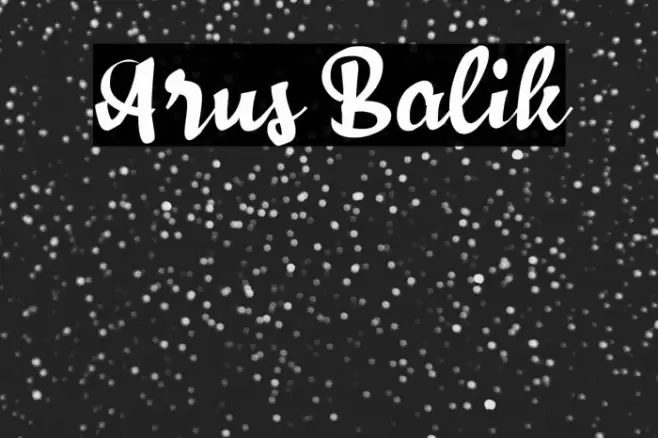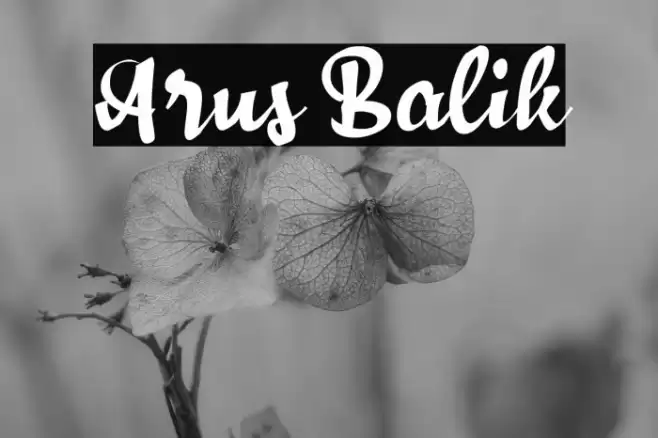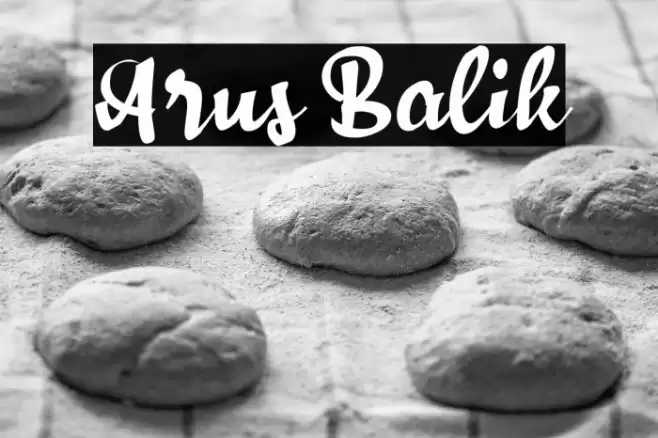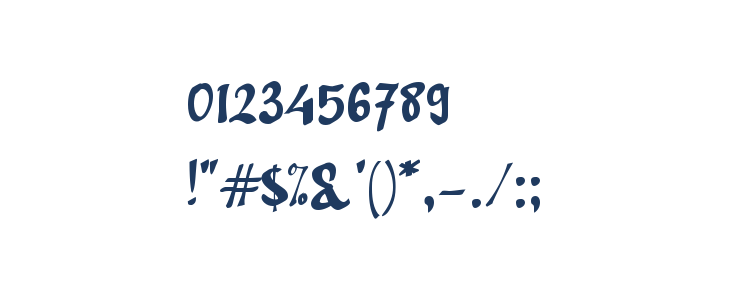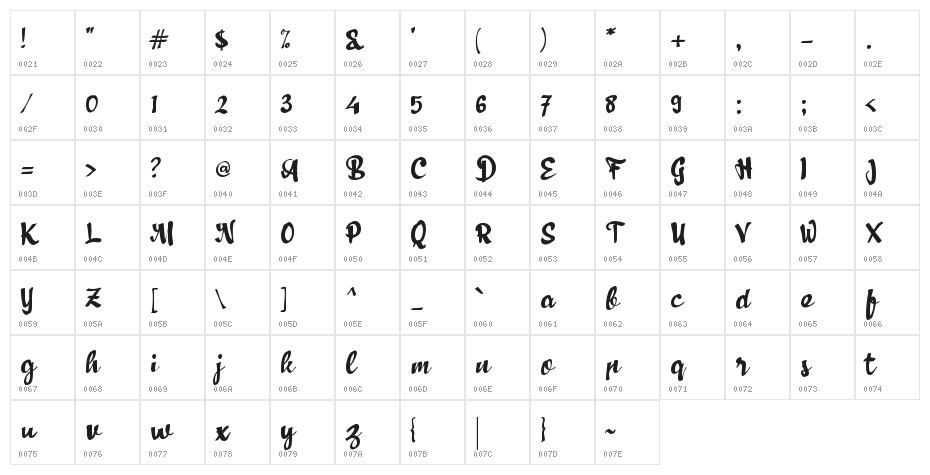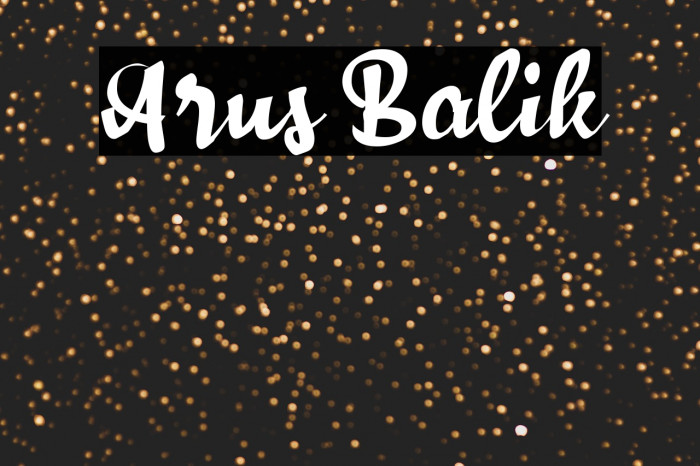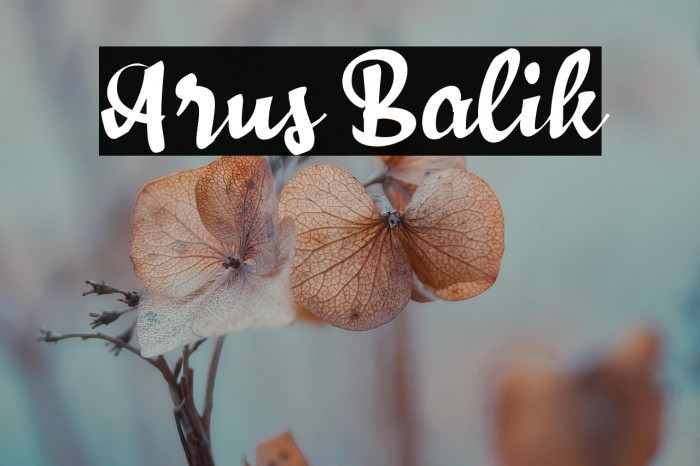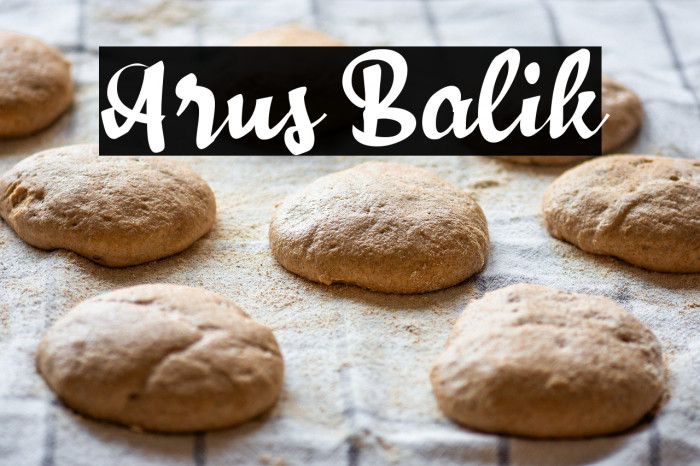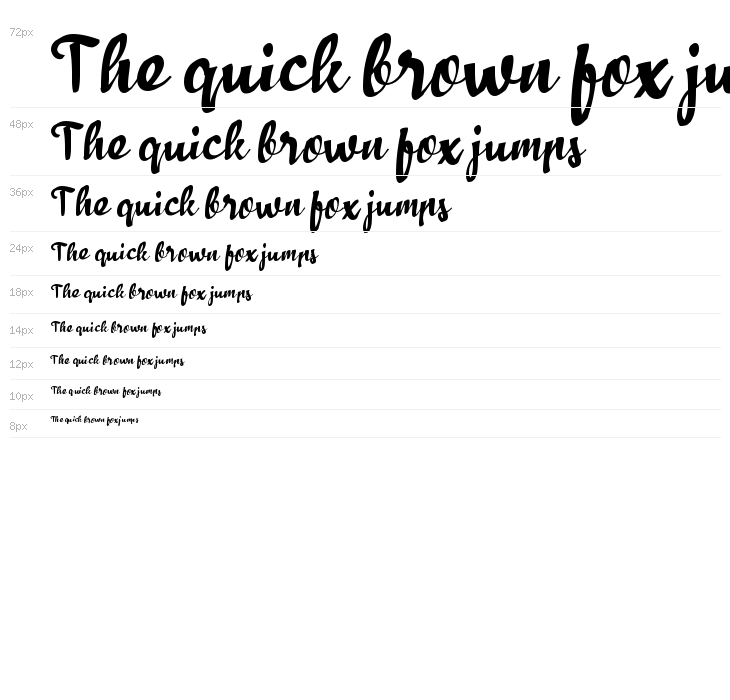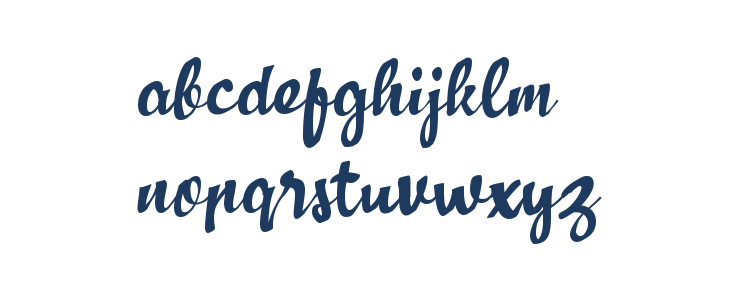
Arus Balik Font
Arus Balik Description
This font features a bold and dynamic script style with a strong presence. The characters are crafted with a brush-like appearance, giving them a hand-painted feel. The uppercase letters are particularly striking, with sweeping curves and a sense of movement. The lowercase letters maintain a consistent flow, complementing the uppercase with their elegant and fluid forms. Numbers and special characters are designed to match the overall aesthetic, ensuring a cohesive look across all text. The font's bold strokes and artistic flair make it ideal for projects that require a touch of creativity and expressiveness.
A bold, brush-style script font with dynamic and expressive characters from Uncategorized fonts.